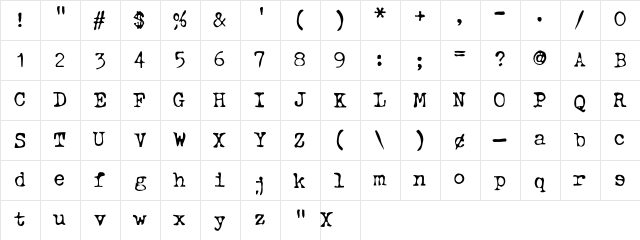
Typewriter Oldstyle
Design Context for Typewriter Typeface
Typewriter brings the precise, column-aligned rhythm of monospaced typography to designs that value technical clarity and systematic order.
Well-suited to data-driven dashboards, coding tutorials, and any design that wants to reference the world of programming.
Pro Tip: Use Typewriter with slightly increased line-height for extended reading — fixed-width spacing can feel dense in longer passages without extra breathing room.